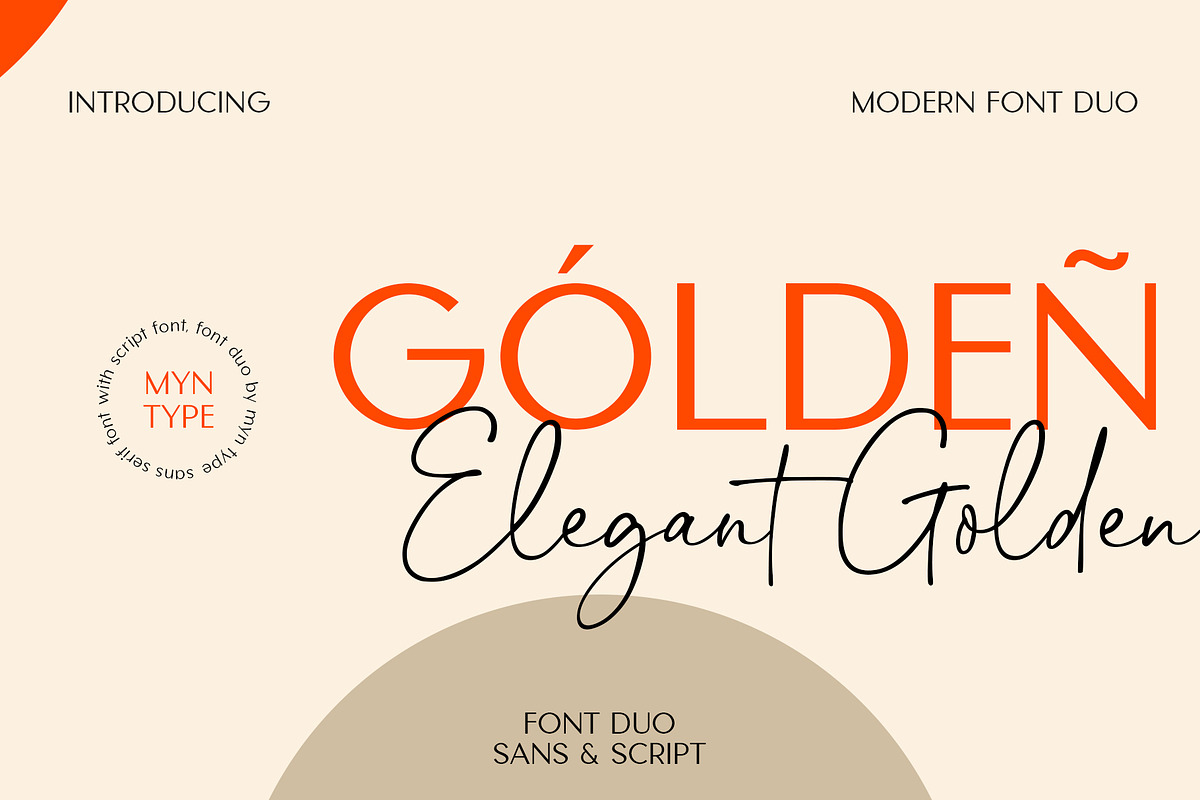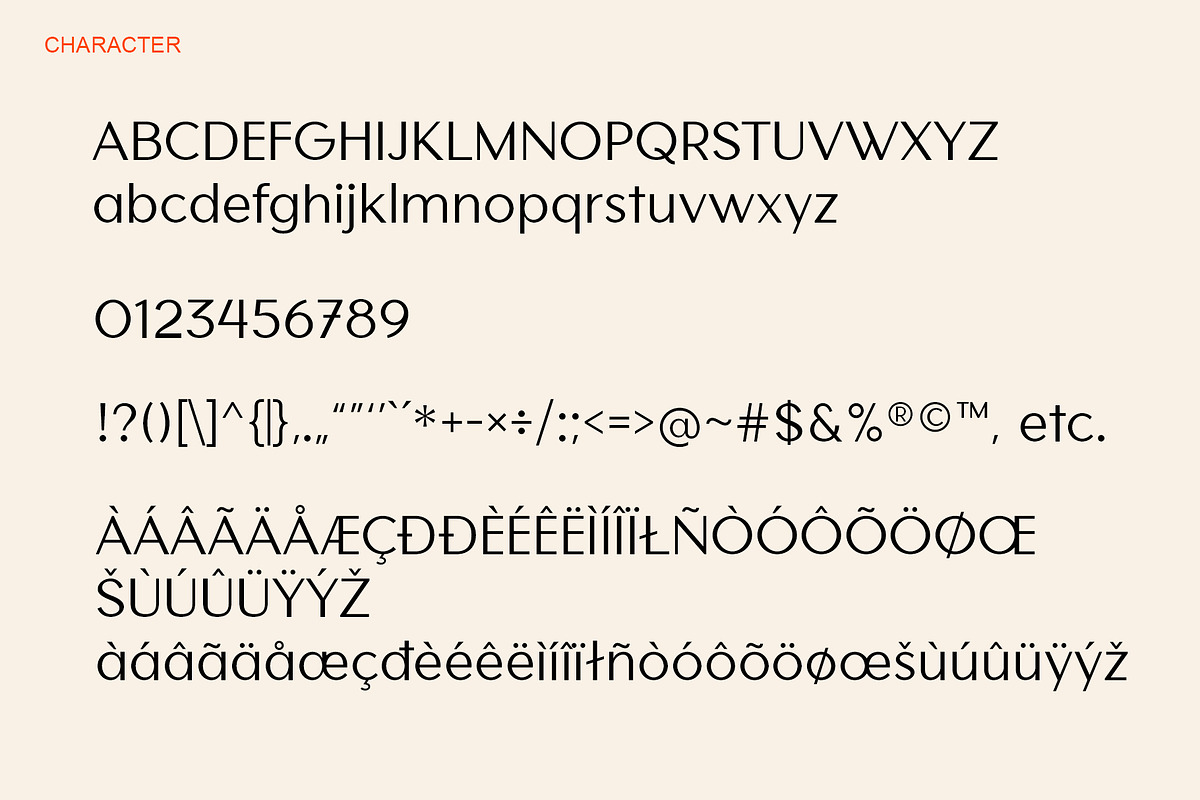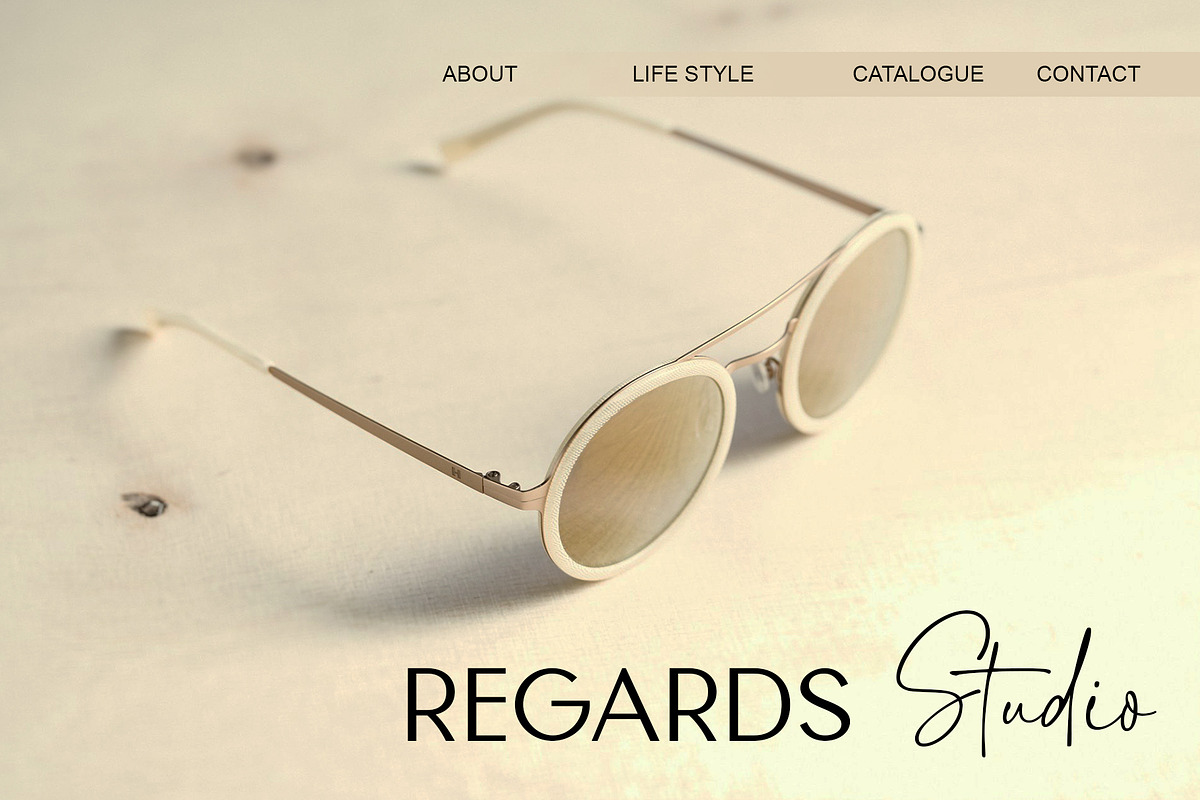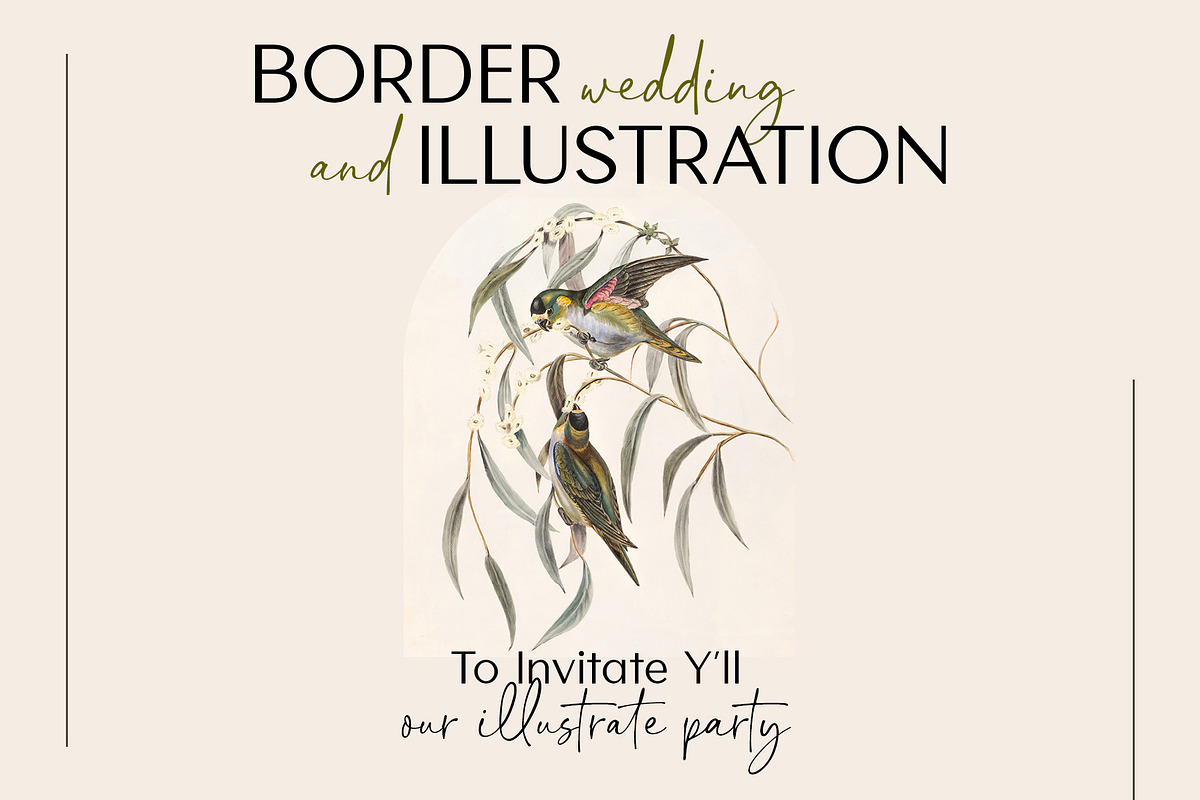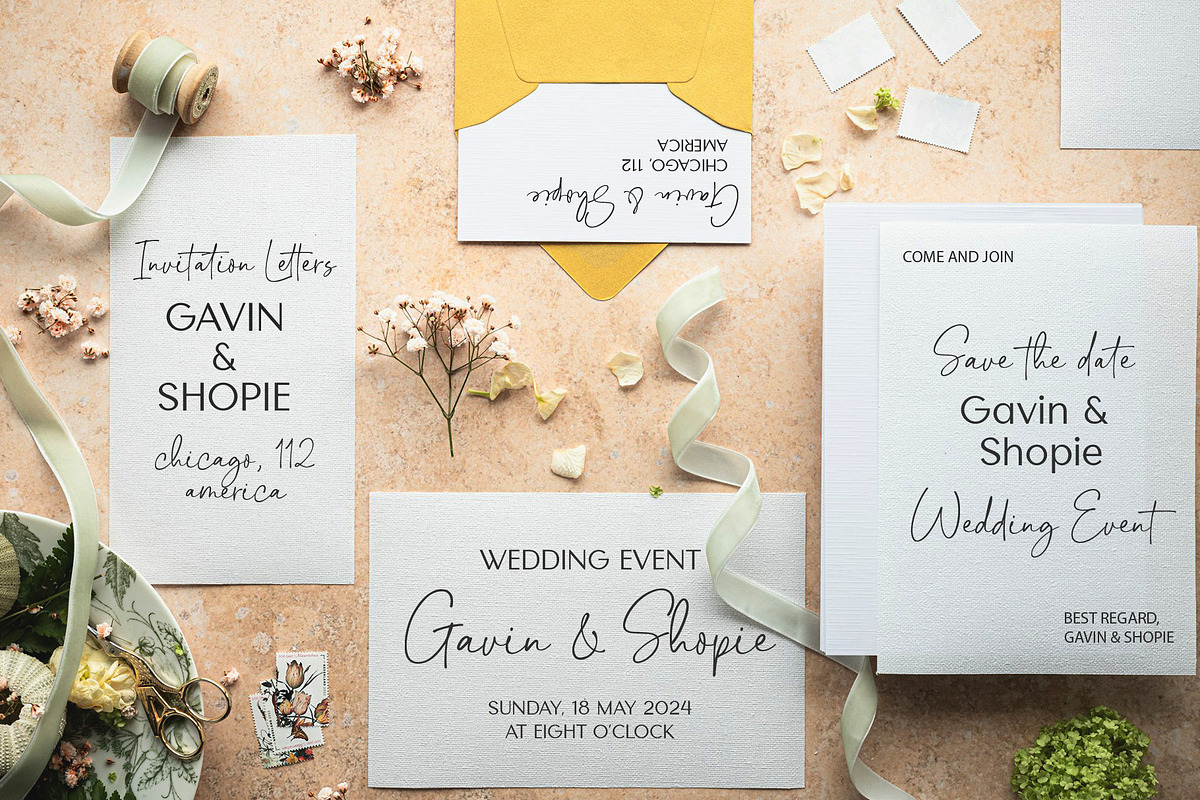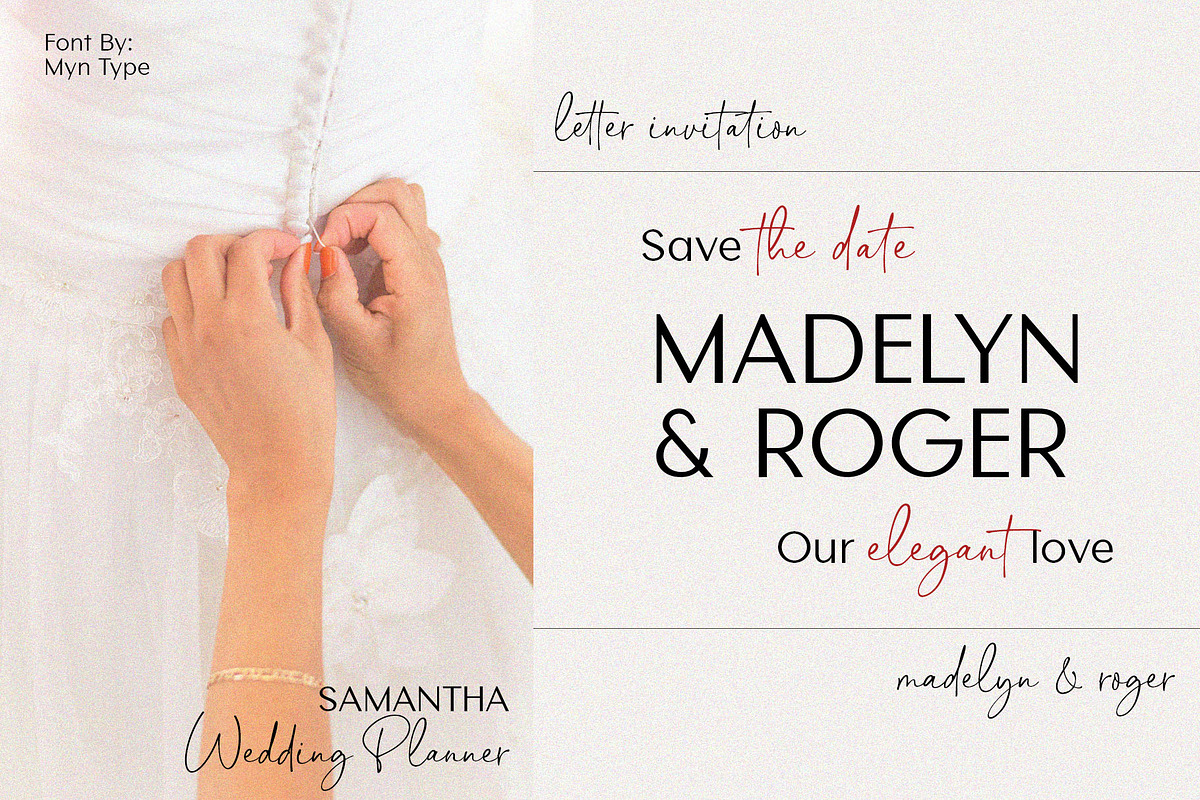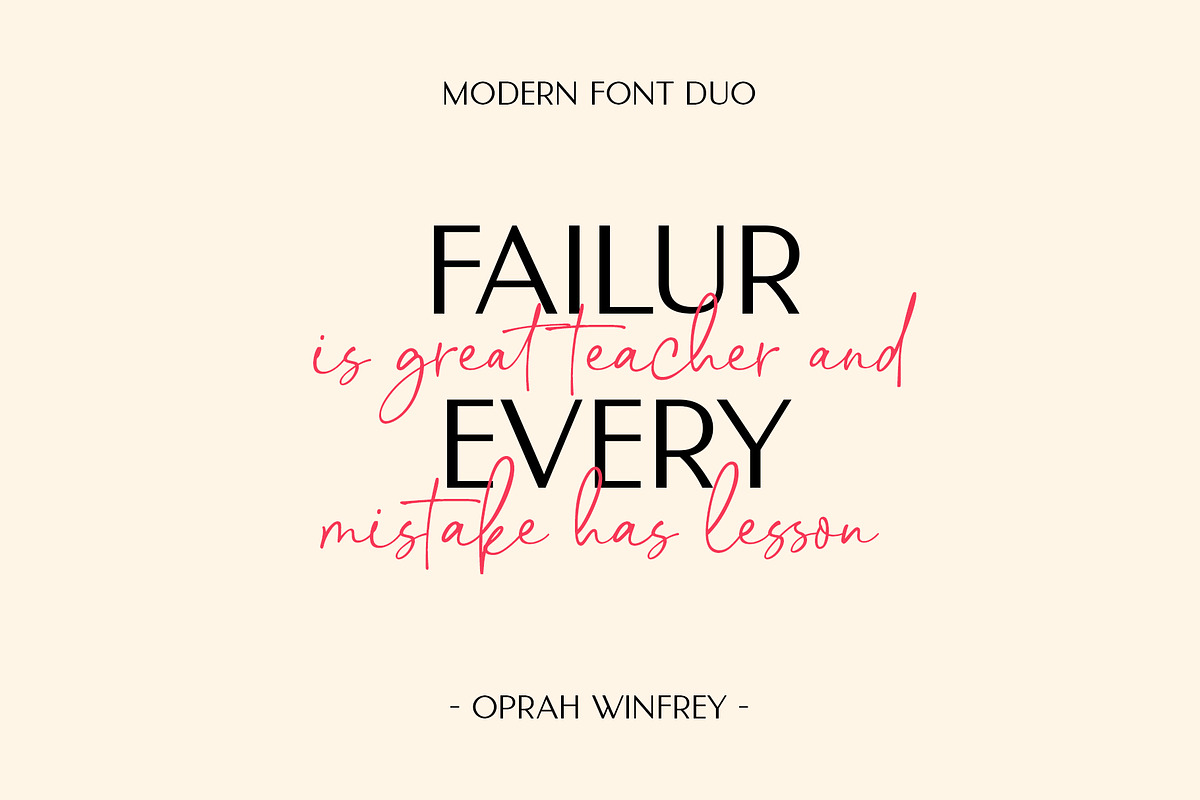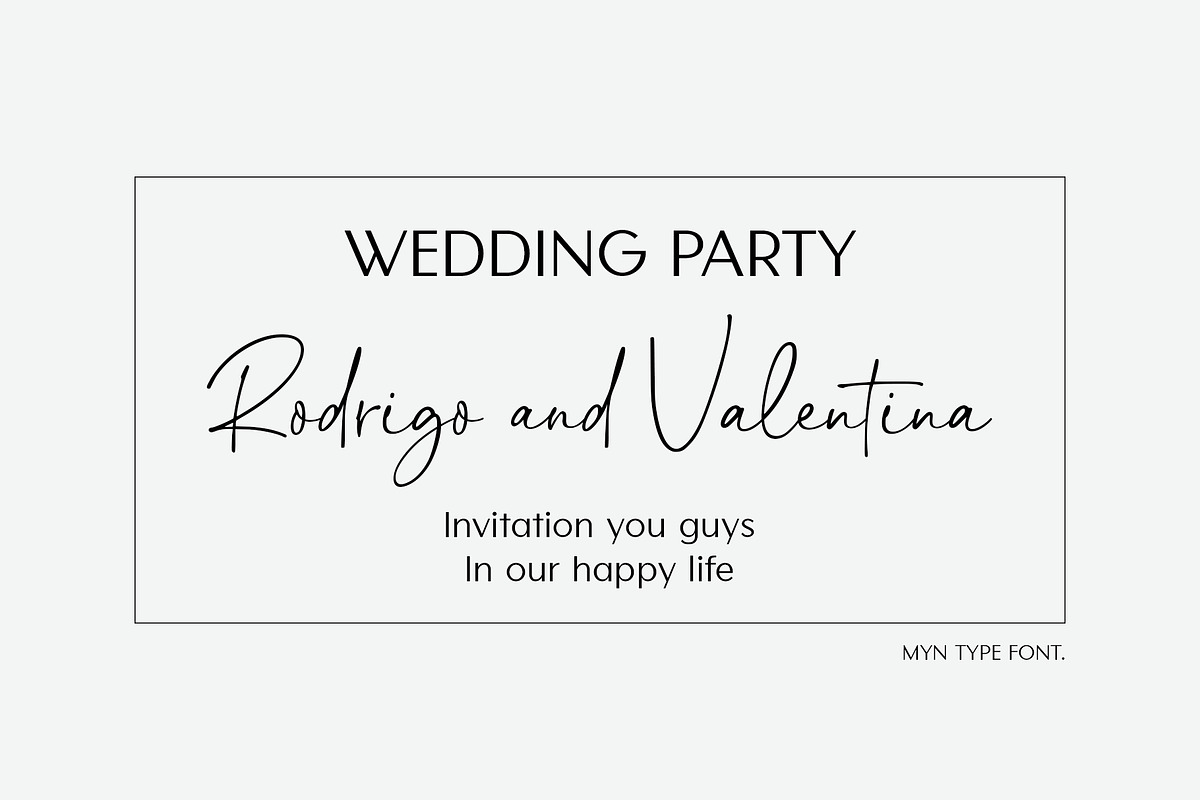
Elegant Golden - Font Duo
Elegant golden is a combination of two complementary typefaces designed to work together harmoniously, a sans-serif font paired with a script font.
This font pairing offers versatility and allows for various design applications, from branding, calligraphy logos, invitations, display product, wedding design, social media graphics, advertising, packaging, and many more because versatility of this font.